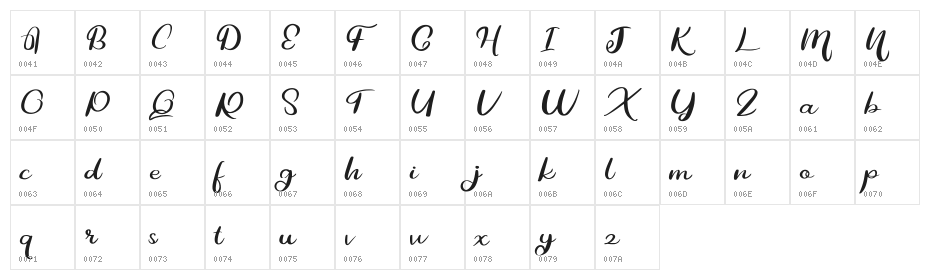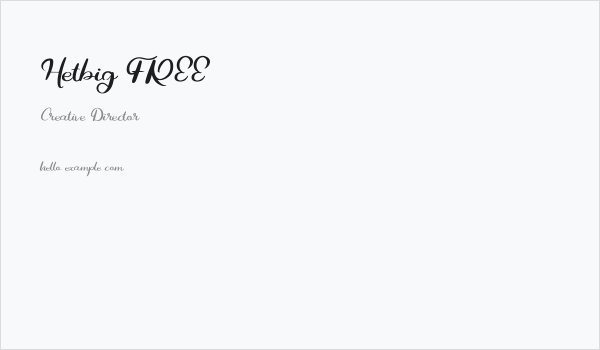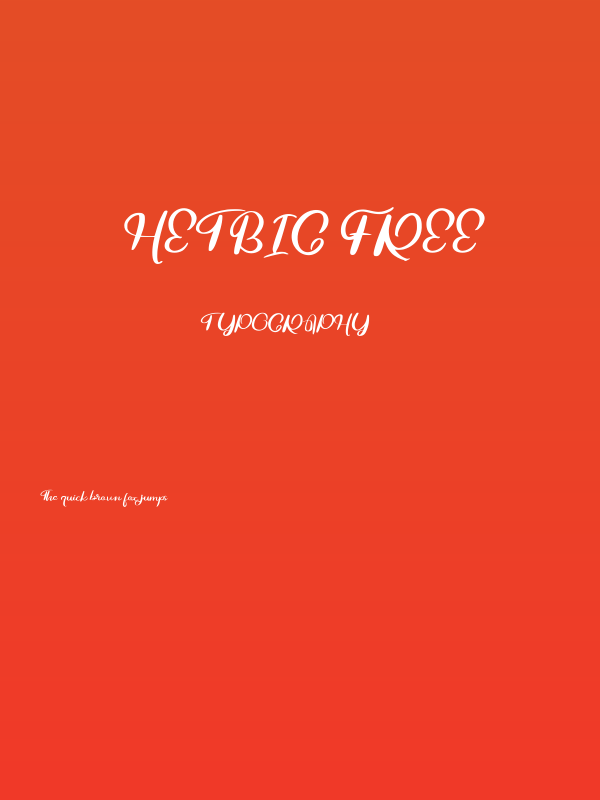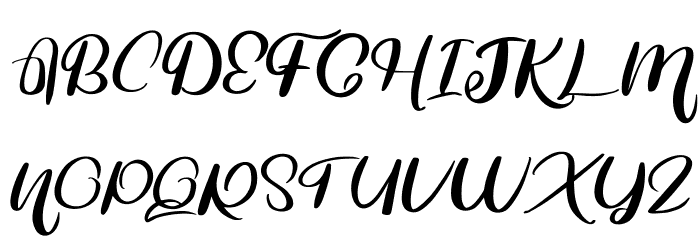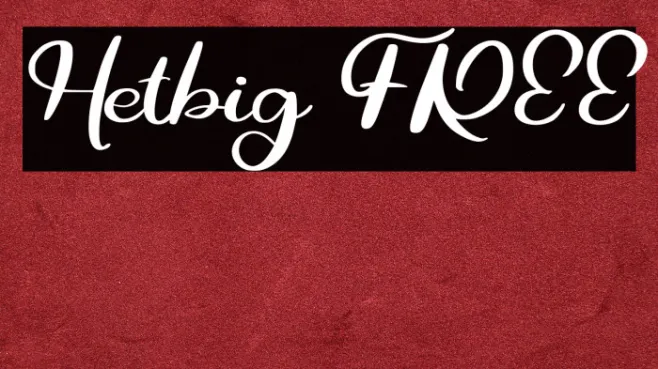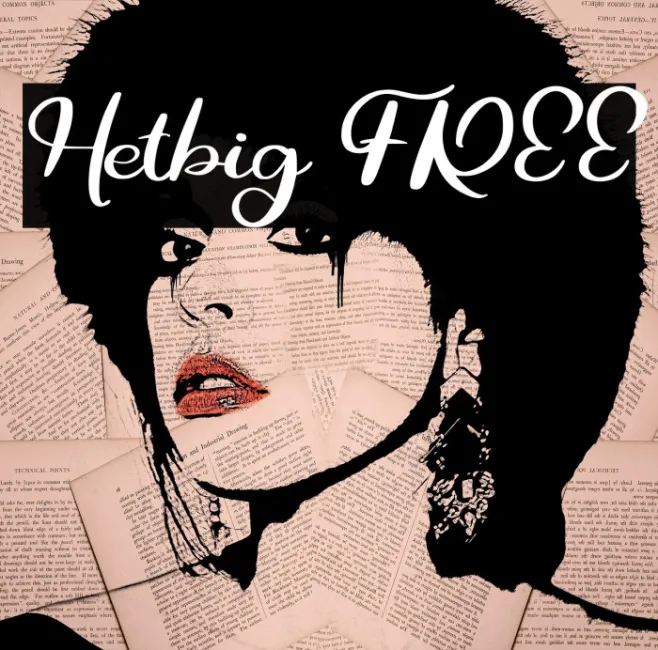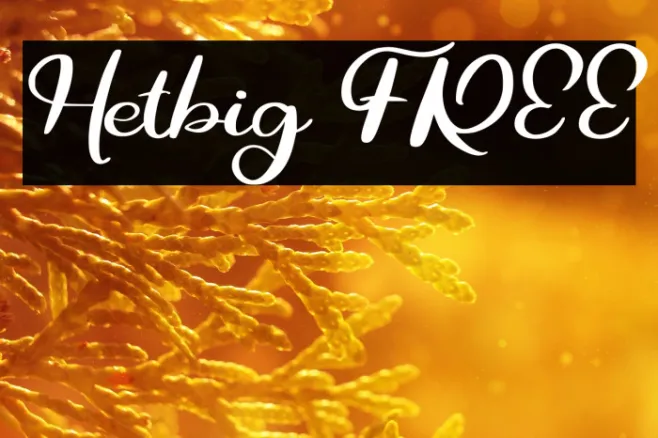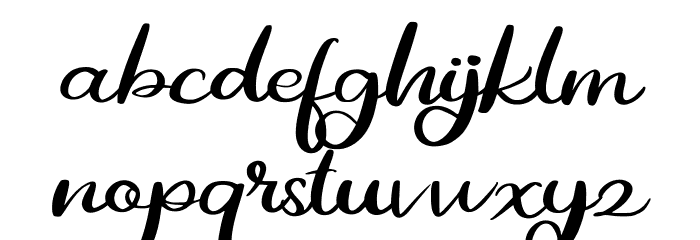
Hetbig FREE Font
Hetbig FREE Description
This font features a flowing, cursive style with elegant, sweeping strokes that give it a sophisticated and artistic appearance. The uppercase letters are characterized by their elaborate loops and flourishes, while the lowercase letters maintain a consistent, smooth flow. The font's design is reminiscent of traditional calligraphy, with a modern twist that adds a touch of flair. The characters are well-balanced, with a slight slant that enhances the overall fluidity. This font is ideal for projects that require a personal, handwritten touch, offering a sense of elegance and creativity.